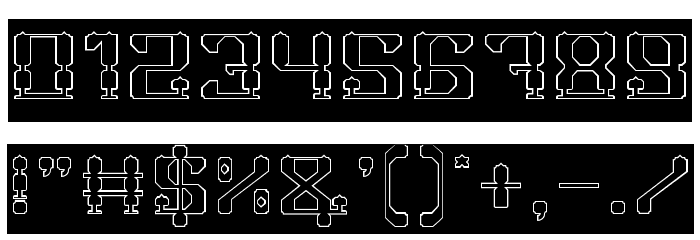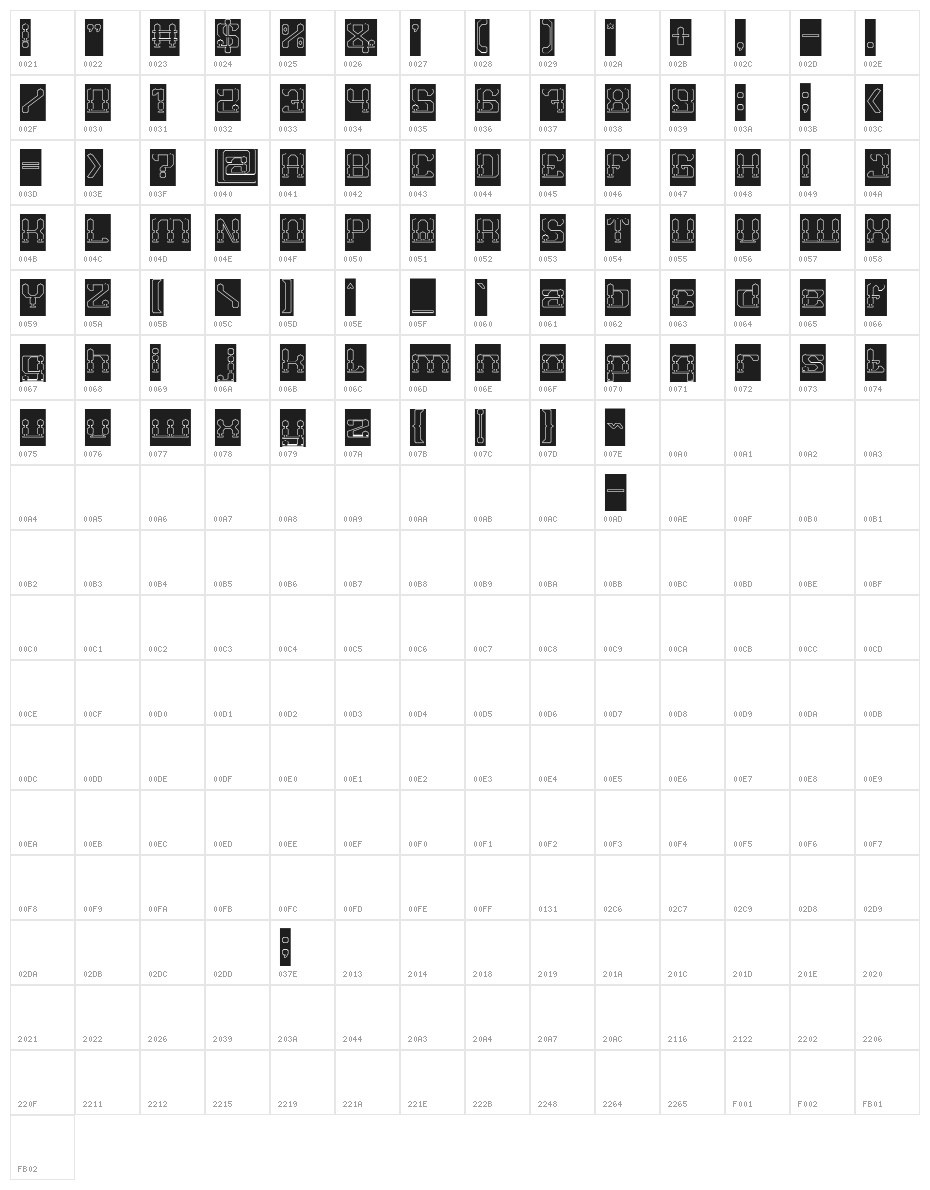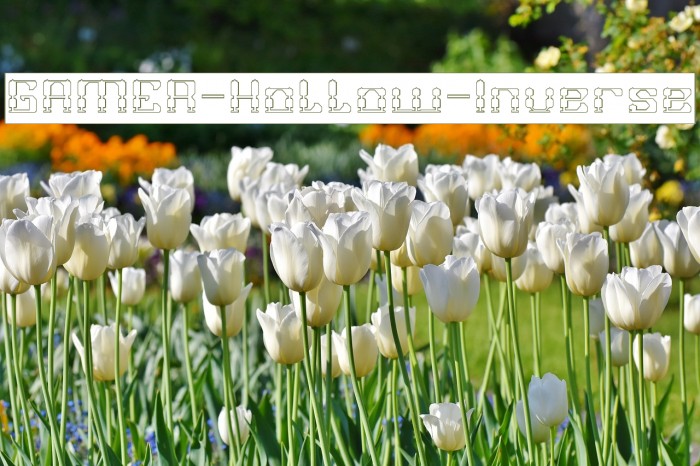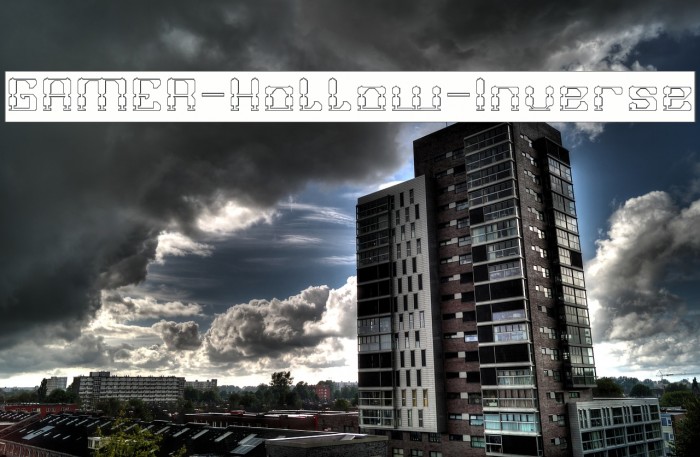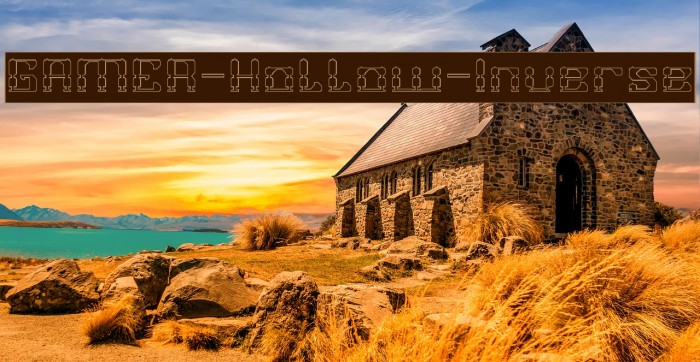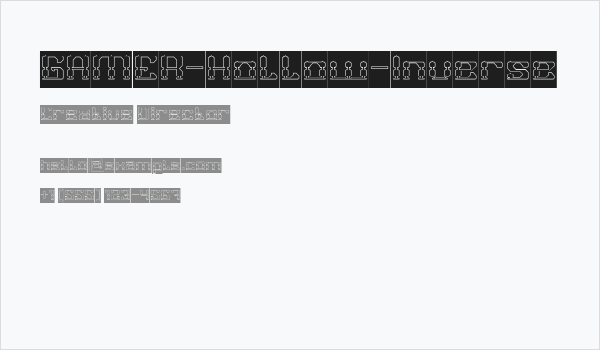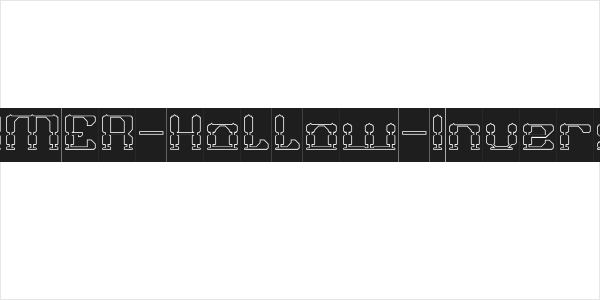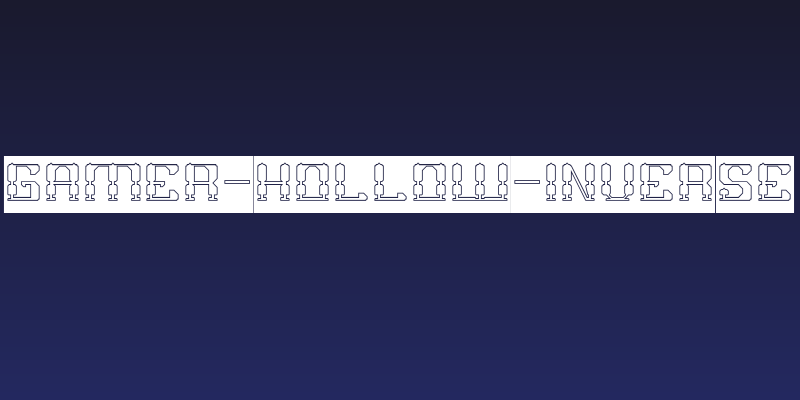
GAMER-Hollow-Inverse Font
GAMER-Hollow-Inverse Description
This font features a unique hollow design with an inverse style, creating a futuristic and digital aesthetic. The characters are outlined with a bold, geometric structure, giving them a distinct, tech-inspired look. The uppercase and lowercase letters maintain a consistent style, with sharp angles and straight lines that emphasize a modern, digital theme. Numbers and special characters are designed to match the overall style, ensuring uniformity across all glyphs. The font's hollow nature allows for creative use of background colors or textures to show through, adding versatility to its application.
| Use Case | Logos, Headlines, Digital Art |
| Proposed Projects | Ideal for video game titles, tech logos, digital art projects, and futuristic-themed designs. |